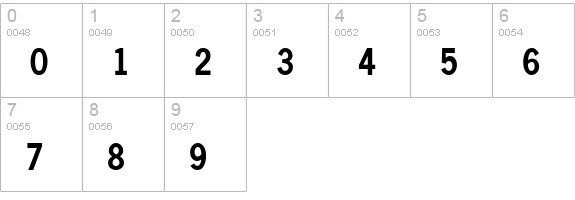
NewsGothicCnd-B Font Details
NewsGothicCnd-B is a versatile and modern font that exudes sophistication and professionalism. With its clean lines and elegant design, this font is perfect for a wide range of design projects, from editorial layouts to branding materials. The bold yet refined appearance of NewsGothicCnd-B makes it a popular choice among designers looking to make a bold statement with their typography. What sets NewsGothicCnd-B apart is that it is available for free download at FontsMarket.com, making it accessible to designers of all levels. Whether you're working on a personal project or a client's campaign, NewsGothicCnd-B is sure to elevate the overall look and feel of your design. Download this stylish and contemporary font today and add a touch of sophistication to your next project.